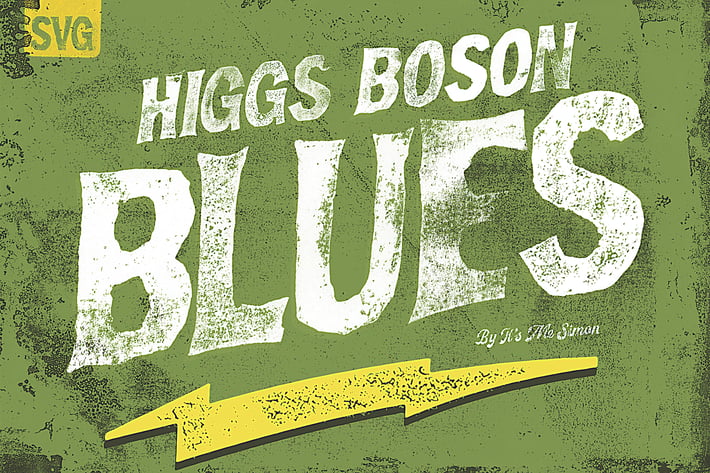
Higgs Boson Blues handmade OpenType SVG color font
I made Higgs Boson Blues by carving by hand into linoleum blocks and then hand printed onto paper.
Its a big and bold display typeface, which kind of has its roots in traditional wood type.
The OpenType-SVG font an extraordinary amount of texture and detail. It has a vintage kind of western style, it a weathered almost stamped like appearance.
It has all that charming grunge detail that only block printing by hand can achieve.
Higgs Boson Blues usage
The font is suitable for a wide variety of designs everything from t-shirts, letterheads, headlines and logos to retro packaging, book covers and beer labels.
If you looking to get that authentic letterpress look, Higgs Boson Blues might be a perfect choice.
OpenType Alternatives
Each lowercase and uppercase letter has 3 alternatives. Helpful to make your lettering seem different and random.